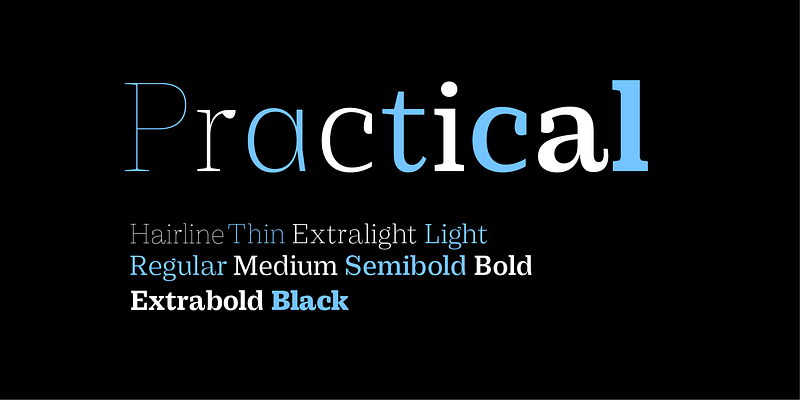
Practical Serif Font Free Download is a versatile and highly readable serif typeface that combines traditional elegance with modern sensibility. Featuring clear, well-defined letterforms and balanced proportions, this font is ideal for both digital and print projects, from editorial design to branding, advertising, and beyond.
Practical Serif Font Free Download is designed to perform well in a wide range of applications, offering legibility and style for body text, headings, logos, and more. Its subtle serifs and clean design provide a timeless and professional aesthetic, making it perfect for businesses, publications, and any design that requires clarity and sophistication.
Whether you're designing for print, digital media, or corporate branding, Practical Serif is the perfect balance of modernity and tradition.